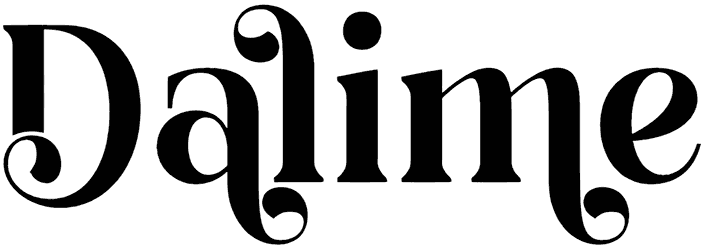
Dalime Font
Dalime is a prestigious serif font that comes with a sturdy style and clean shape, thus looking insanely matched for all of your creative ideas, like movie posters, business cards, flyers, applications, or digital banners. Since it provides two different styles, it can widen your selection range in the middle of critical projects.